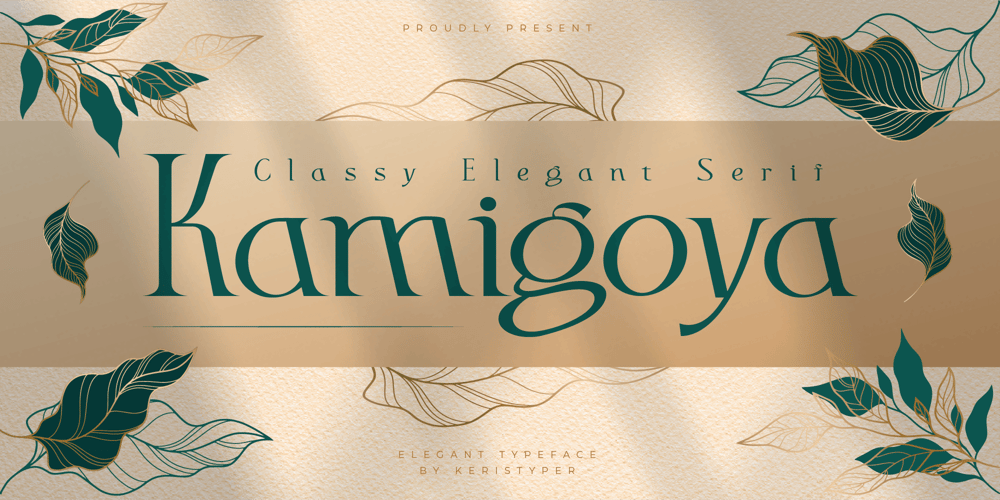
Kamigoya Font Family was designed by Tezar Tantular and published by Keristyper Studio. Kamigoya contains 1 styles and family package options. Kamigoya is a classy font with visual elegance, and smooth curves, making your work look true and attractive. This font is good for logo design, Social media, Movie Titles, Books Titles, short text even long text letters, and good for your secondary text font with sans or serif.Featured: Standard Uppercase & Lowercase Numeral & Punctuation Multilingual : ä ö ü Ä Ö Ü ß ¿ ¡ Alternate & Ligature PUA encoded We recommend programs that support the OpenType feature and the Glyphs panel such as Adobe applications or Corel Draw. so you can use all the variations of the glyphs.Hope you enjoy our fonts!